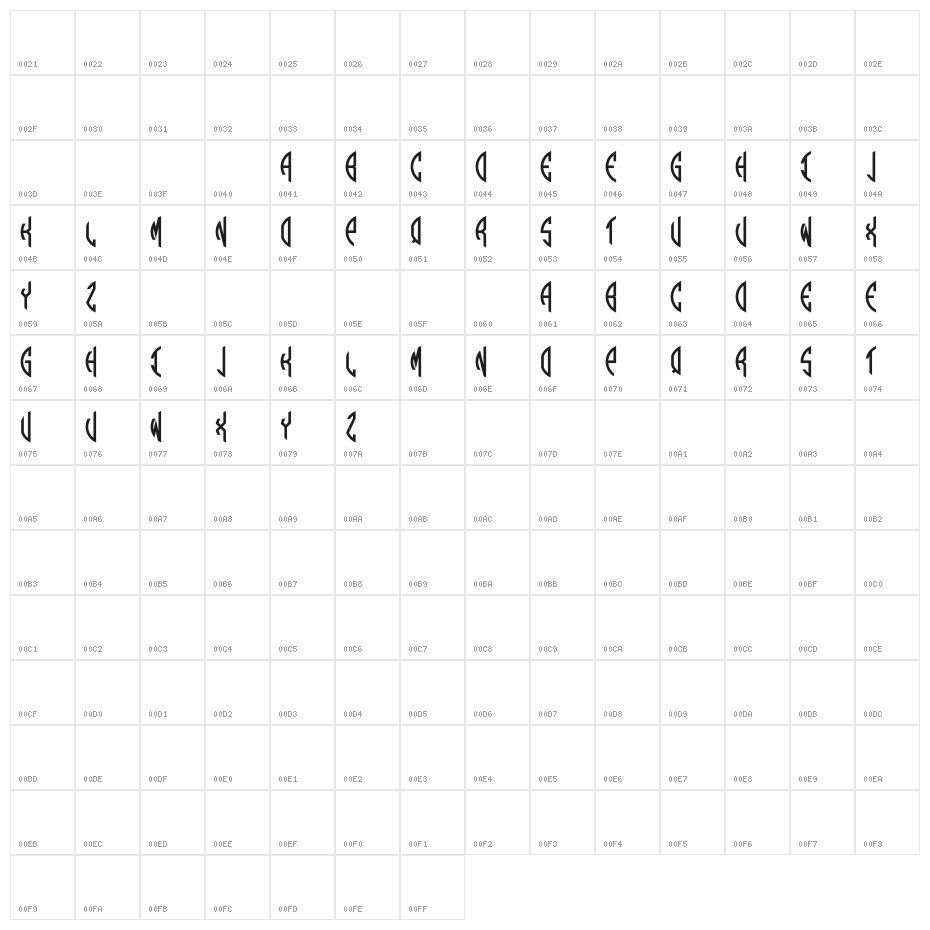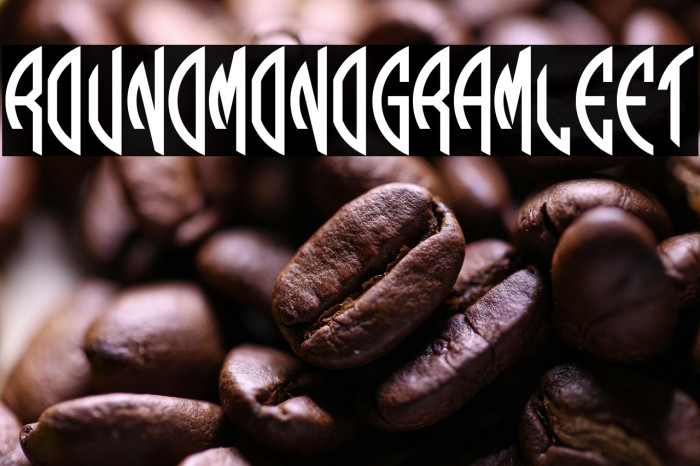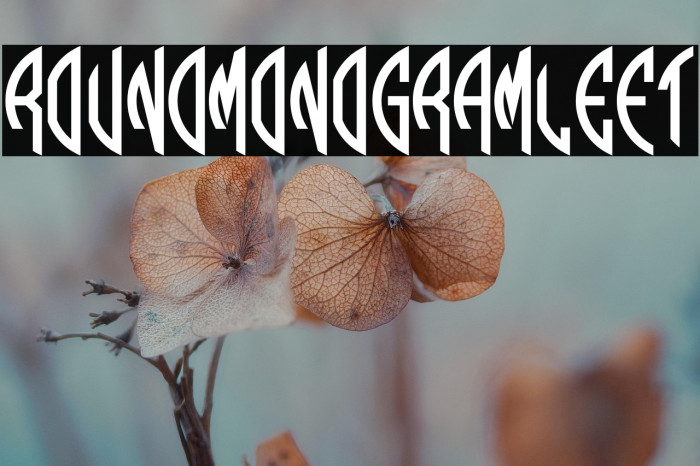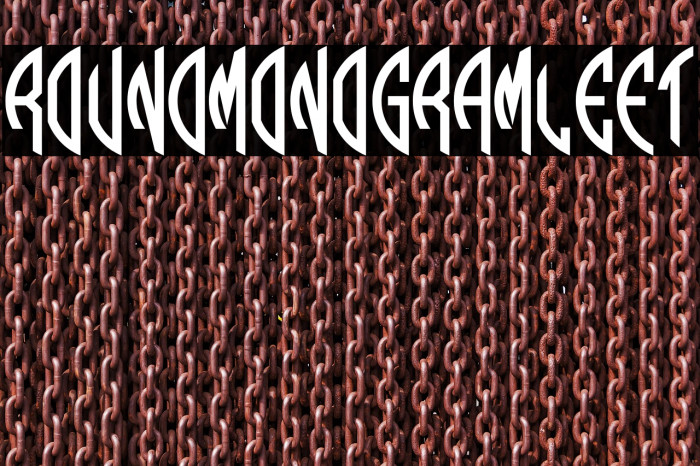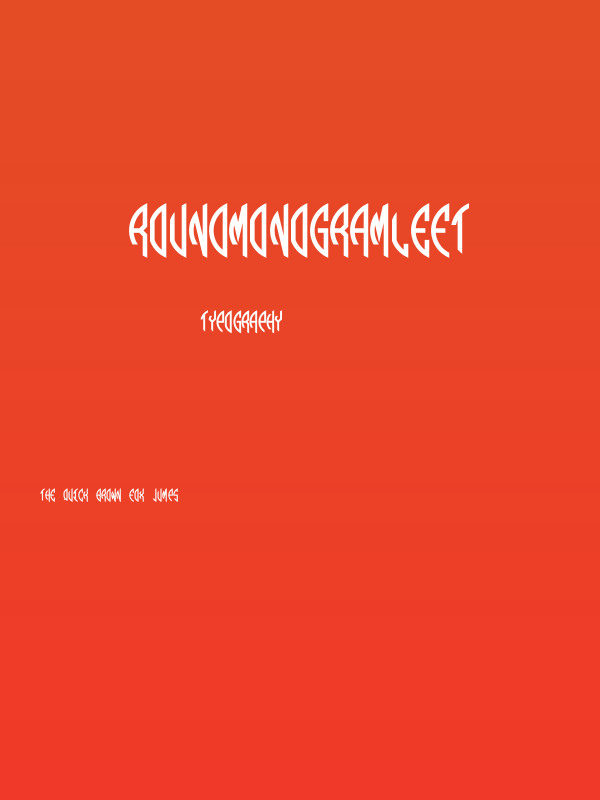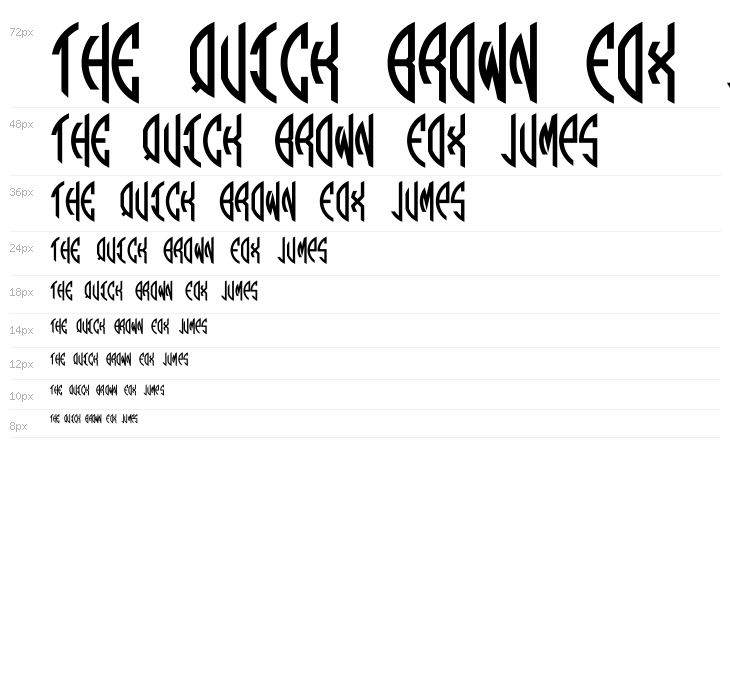
Round_Monogram_Left Font
Round_Monogram_Left Description
This font features a bold, geometric style with sharp angles and a distinct monogram appearance. The characters are crafted with a unique blend of straight lines and curves, creating a dynamic and eye-catching look. The uppercase letters are particularly striking, with a consistent height and width that gives them a uniform appearance. The overall design is modern and artistic, making it suitable for creative and decorative purposes. The font's boldness and distinctive style make it stand out, while its geometric nature adds a sense of precision and order.
| Use Case | Logos, Decorative text, Branding |
| Proposed Projects | Ideal for logos, branding, monograms, and decorative projects where a bold statement is needed. |